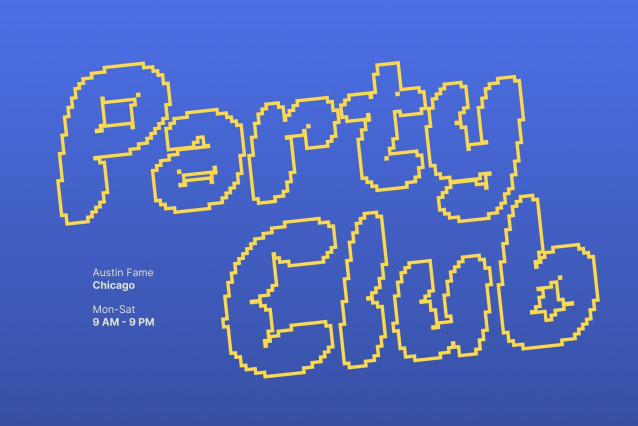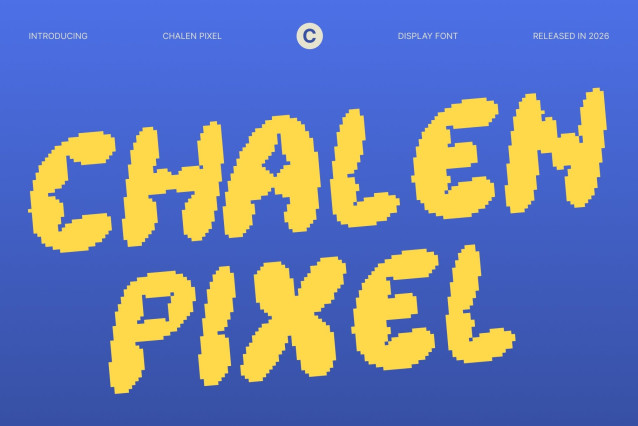
Chalen Pixel Font
Chalen Pixel Font – This is a cheerful display font inspired by bubbly shapes and rounded forms, enhanced with subtle pixel detailing. Each letter feels soft, plump, and playful, creating a joyful visual language that instantly brings charm and personality to any design.
Fun, Childlike, and Expressive
With its playful curves and friendly proportions, this font radiates fun and childlike energy. The pixel influence adds a modern digital twist, making the font feel fresh while preserving its lighthearted and carefree spirit perfect for designs that aim to entertain and delight.
Versatile for Playful Projects
This font is well suited for a wide range of creative applications, including children’s books, posters, party invitations, playful branding, and digital content. Its clear shapes and distinctive style allow it to work effectively in headlines and short text, ensuring consistency and visual appeal.
Eye-Catching Joy in Every Letter
Bold, bubbly, and memorable, this font ensures your designs stand out with warmth and whimsy. Whether used as a main focal point or a supporting element, it adds joy, friendliness, and playful energy making it an ideal choice for projects that celebrate fun, imagination, and creativity.